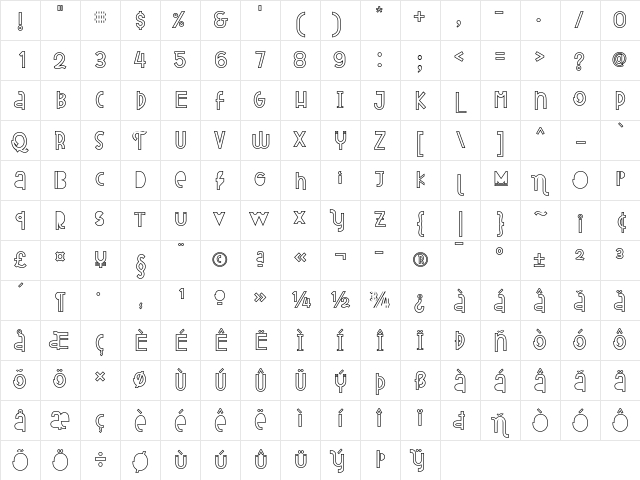
Attracted Monday Outline Regular
| Foundry | 7NTypes |
| Designer | Keithzo; Situjuh Nazara |
Design Context for Attracted Monday Outline Typeface
Attracted Monday Outline brings ornamental detail and strong personality to headlines and identities, where visual impact matters more than quiet functionality.
Font Pairing: Pair with a clean neutral sans-serif for body copy to let Attracted Monday Outline's character lead without overwhelming the composition.
Pro Tip: Use Attracted Monday Outline exclusively at display sizes — it was designed to be seen, not read at length. Let a neutral companion handle body copy.